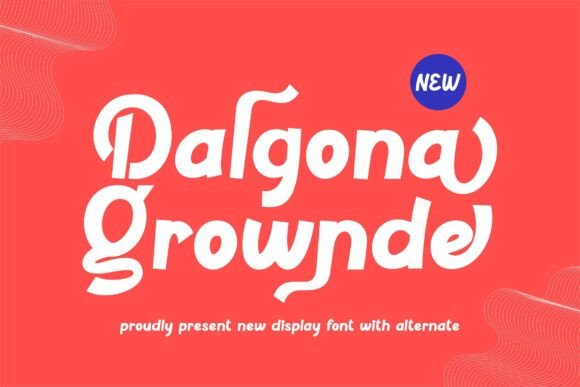
Dalgona Grownde Font: The Ultimate Choice for Creative Designs
In the world of typography, fonts play a crucial role in making designs stand out. A unique and trendy font can elevate your design and make it more engaging. If you’re looking for a font that combines cuteness, bounciness, and a touch of wood theme, then Dalgona Grownde is the perfect choice. In this article, we’ll introduce you to Dalgona Grownde, a handwritten font that’s perfect for various design projects.
What is Dalgona Grownde Font?
Dalgona Grownde is a trendy, bouncy, and cute handwritten font with a unique character that incorporates a wood theme. The font’s design is inspired by the natural texture of wood, giving it a distinct and rustic feel. The font’s creator aimed to design a font that’s not only visually appealing but also versatile and easy to use.
Key Features of Dalgona Grownde Font
- Trendy and Bouncy Design: Dalgona Grownde has a playful and energetic design that’s perfect for designs that require a youthful and vibrant feel.
- Wood Theme: The font’s wood theme gives it a natural and rustic feel that’s perfect for designs that require a earthy touch.
- Handwritten Style: The font’s handwritten style makes it perfect for designs that require a personal and human touch.
- Unique Character: Dalgona Grownde has a unique character that sets it apart from other fonts.
Use Cases for Dalgona Grownde Font
Dalgona Grownde is a versatile font that can be used for various design projects. Here are some use cases where Dalgona Grownde shines:
- Invitation Card Designs: Dalgona Grownde is perfect for designing invitation cards for weddings, birthday parties, and other celebrations.
- Company Logos: The font’s unique character and wood theme make it perfect for designing company logos that require a natural and rustic feel.
- Movie Titles and Names: Dalgona Grownde can add a touch of excitement and energy to movie titles and names.
- Business Cards: The font’s handwritten style and wood theme make it perfect for designing business cards that require a personal and natural touch.
- Book Titles and Brand Names: Dalgona Grownde can be used to design book titles and brand names that require a unique and trendy feel.
Why Choose Dalgona Grownde Font?
With so many fonts available, why should you choose Dalgona Grownde? Here are some reasons why Dalgona Grownde stands out:
- Unique Design: Dalgona Grownde has a unique design that sets it apart from other fonts.
- Versatility: The font can be used for various design projects, from invitation cards to company logos.
- High-Quality: The font is designed with high-quality and clear lines, making it perfect for printing and digital use.
Dalgona Grownde is a trendy, bouncy, and cute handwritten font with a unique character that incorporates a wood theme. The font is perfect for various design projects, from invitation cards to company logos. With its versatility, ease of use, and high-quality design, Dalgona Grownde is an excellent choice for designers and non-designers alike. If you’re looking for a font that can add a touch of excitement and energy to your designs, then Dalgona Grownde is the perfect choice.
- What is Dalgona Grownde font? Dalgona Grownde is a trendy, bouncy, and cute handwritten font with a unique character that incorporates a wood theme.